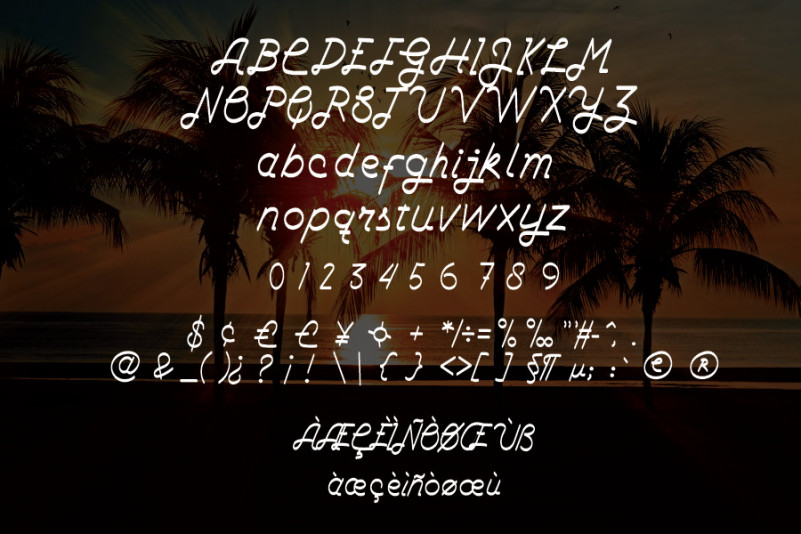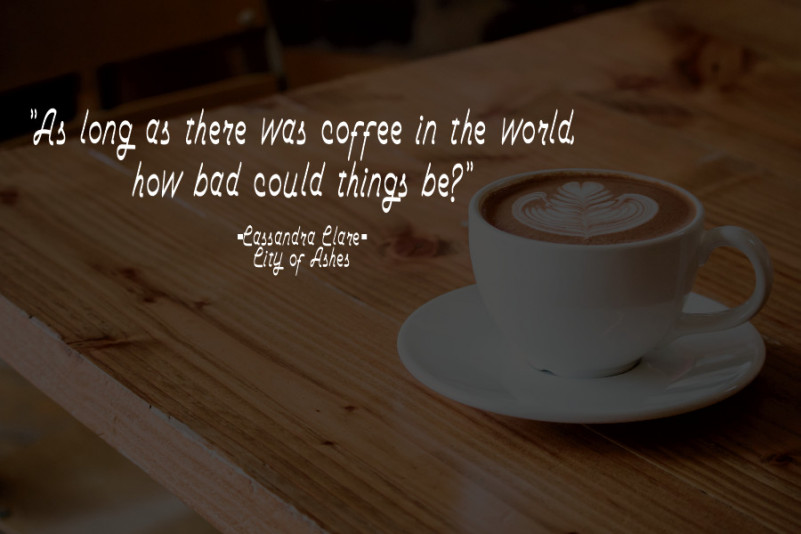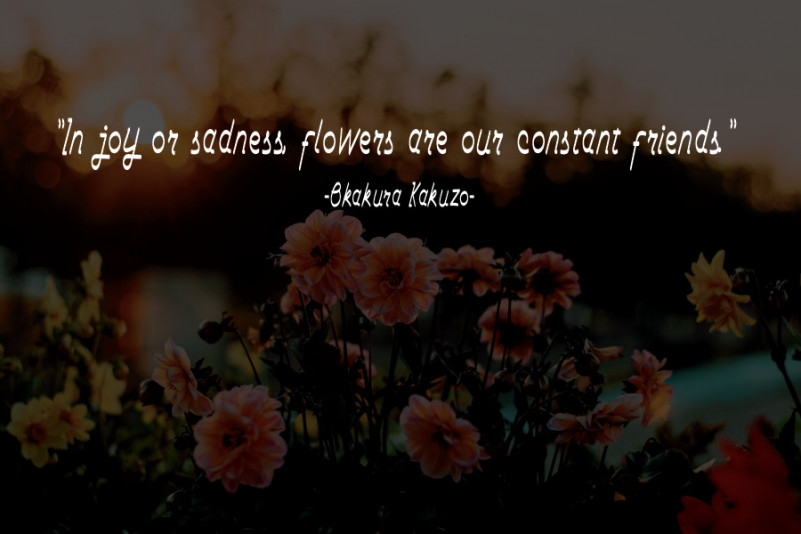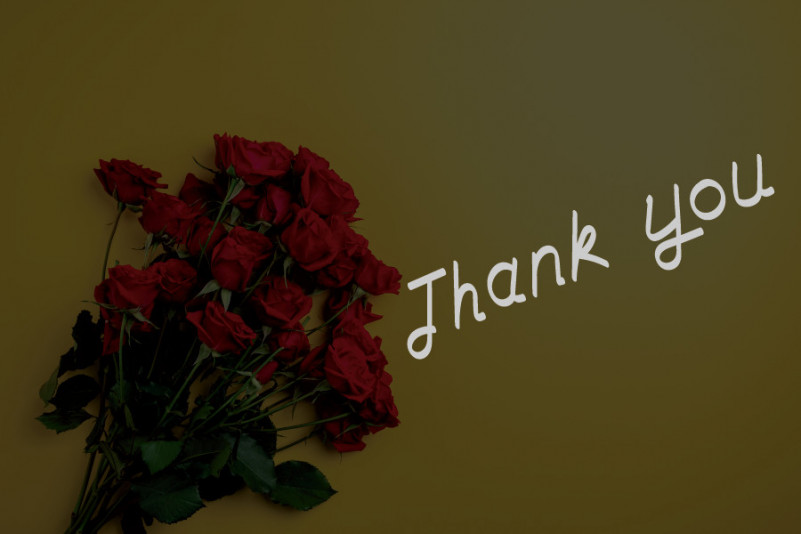
Summer Font
Summer Script Font
This is a sweet, all round and flexible handwritten font. Warm, quirky and jolly, this font will turn each of your project ideas into real works of art. Have fun with this beautiful font and explore its endless variations.